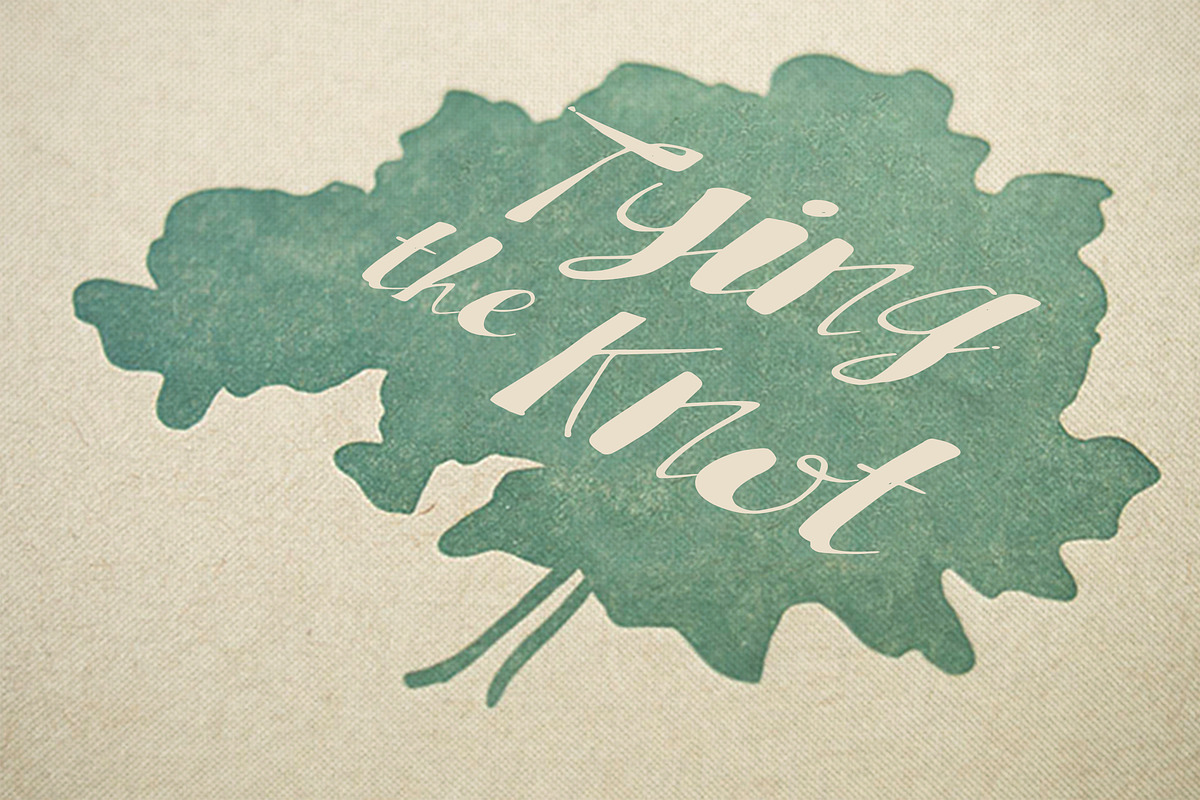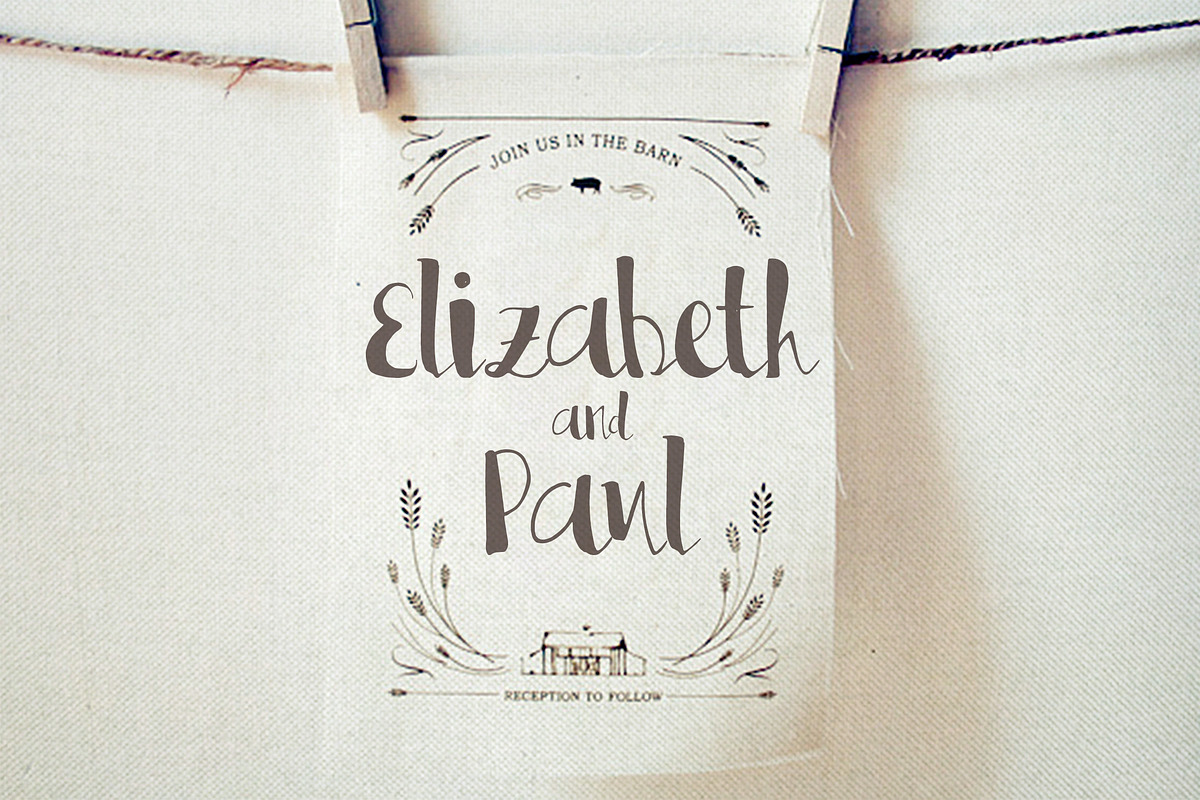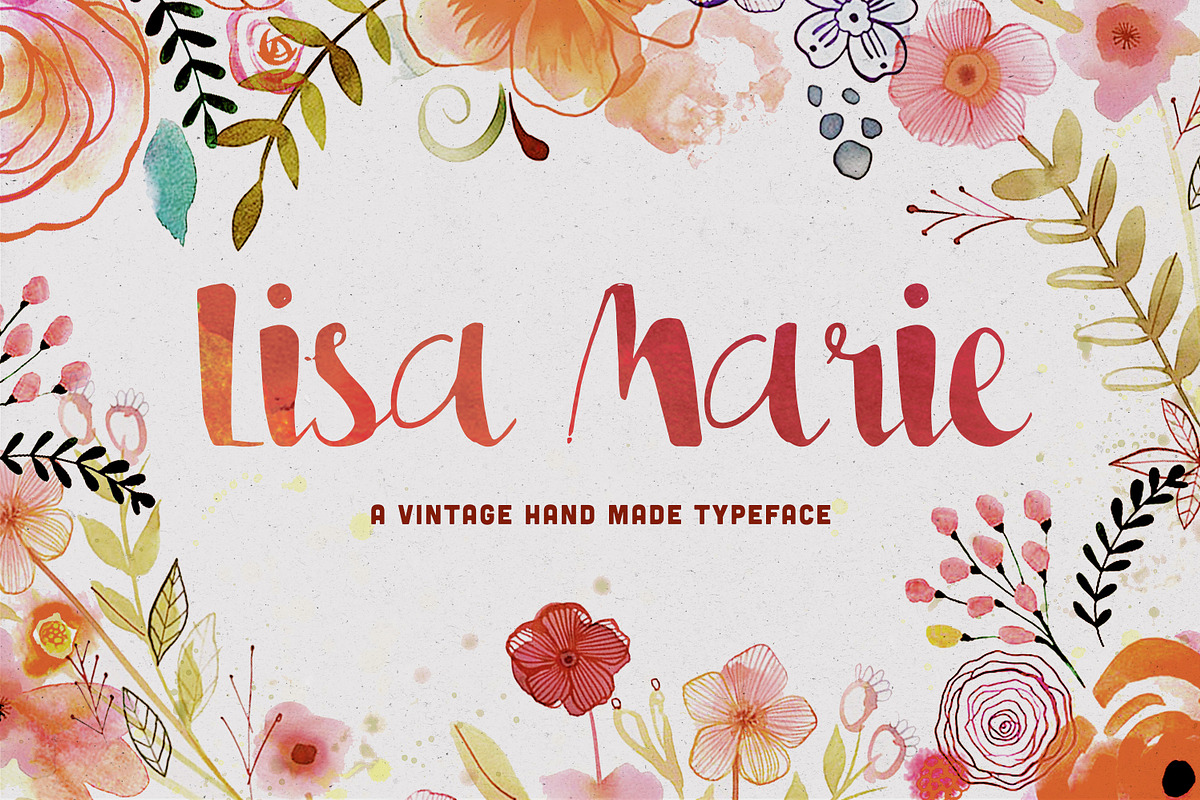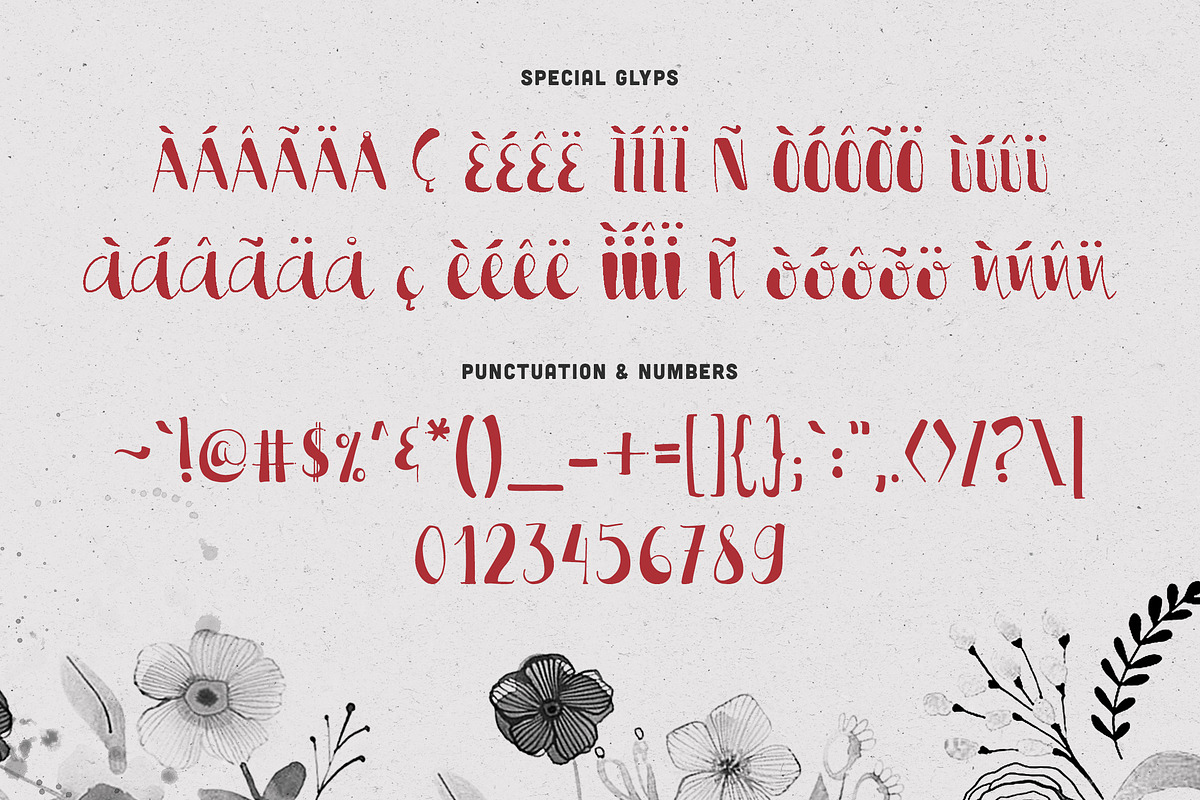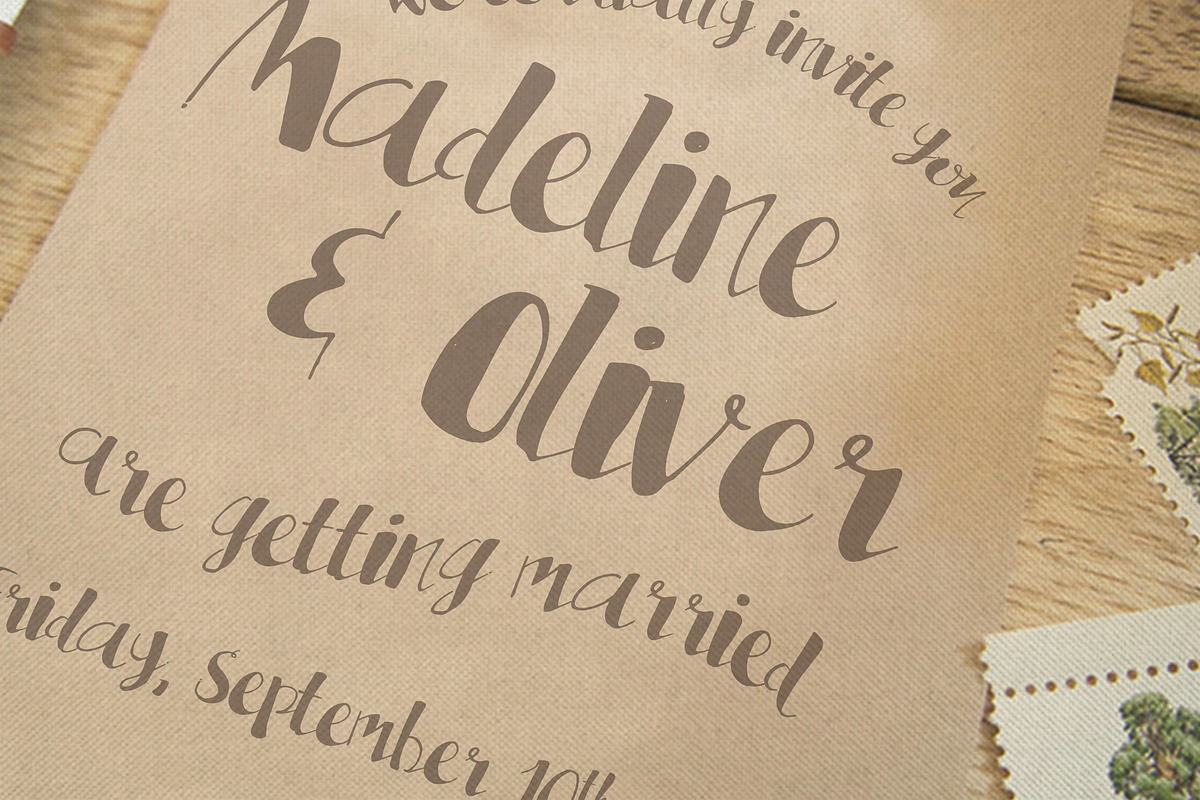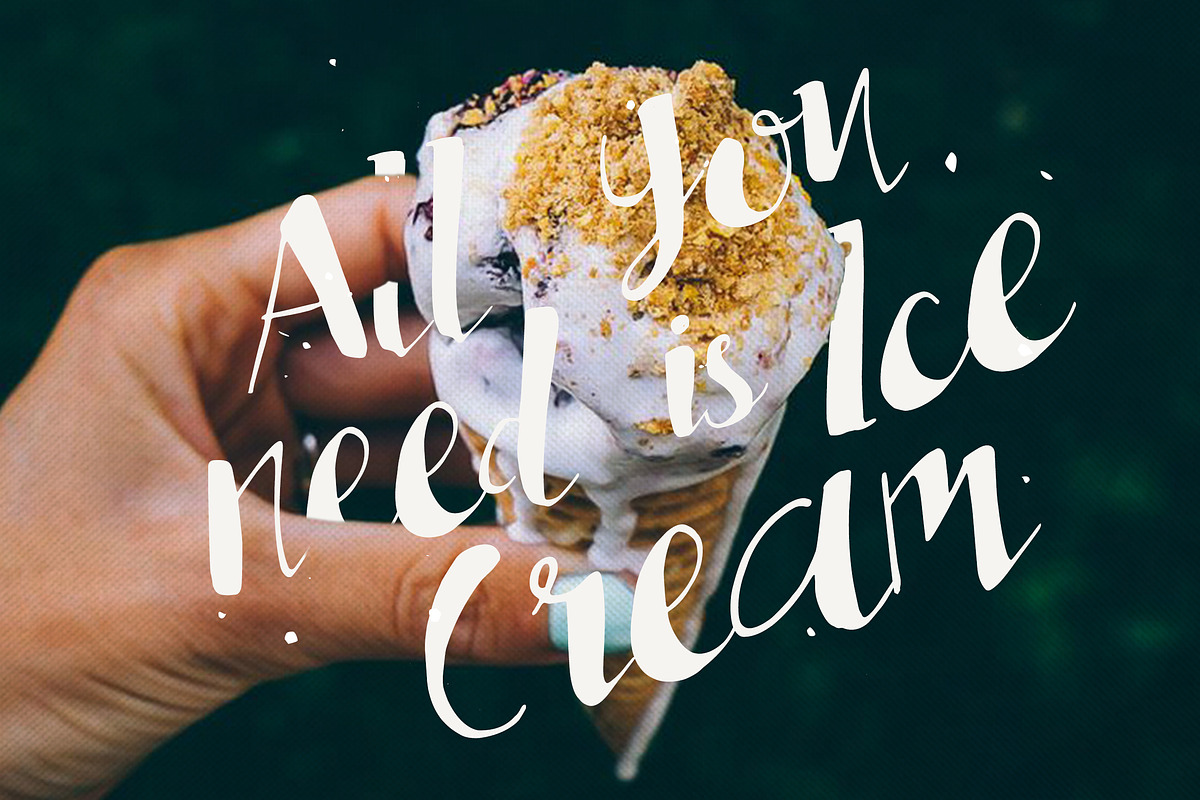
Lisa Marie Script
Lisa Marie is a hand made brush typeface, allow you to create beautiful typography with personal touch for everyday use: wedding invitation, photobook, banner and much more.
Lisa Marie Font Features:
Monoline Style
Natural Pen Stroke
Hand Drawn Font
Accented Glyphs